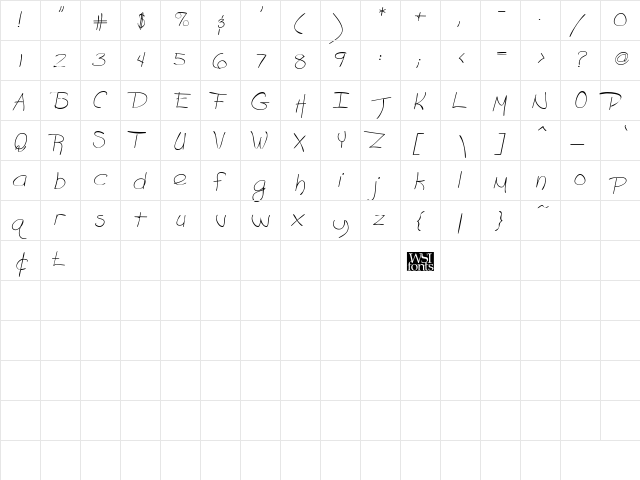
Grafitti Italic Font Preview
Grafitti Italic
Grafitti Italic Font Details
Design Context for Grafitti Typeface
Grafitti is a composed and adaptable typeface that performs quietly and consistently across a wide range of design contexts. The slanted form adds forward momentum and visual energy.
Pro Tip: Try Grafitti for annotation and caption copy alongside an upright companion — the contrast in angle creates a dynamic but ordered typographic system.